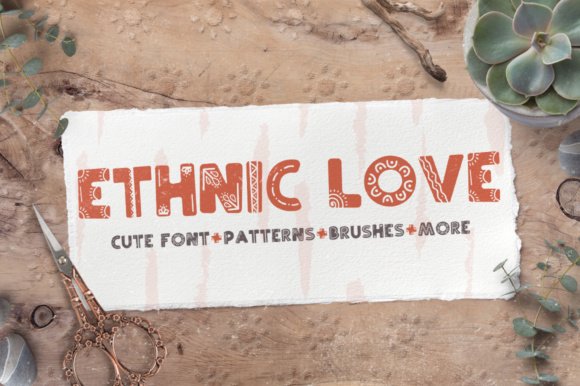
The Birth of a New Love Story: Introducing the Ethnic Love Font
Have you ever been lost in a sea of blank pages, searching for the perfect font to bring your creative vision to life? It’s a feeling many designers know all too well. But what if I told you that there’s a font that can transport you to a world of vibrant patterns, eclectic charm, and timeless beauty? Welcome to the world of the Ethnic Love Font, a game-changing typography that’s about to become your new best friend.
The Ethnic Love Font is more than just a font – it’s an experience. With its stunning patterns, illustrator brushes, and unique decorative circles, this font is designed to add a touch of personality to any design project. Whether you’re a seasoned pro or a creative newbie, the Ethnic Love Font is the perfect tool to help you express yourself and bring your unique voice to the world.
- Font Family: Ethnic Love Font is a unique, hand-drawn font family designed to convey love and affection in various cultures.
- Font Size: Available in multiple font sizes, including Regular (400), Bold (700), and Extra Bold (900), to suit various design needs.
- Unique Characteristics: Features intricate, hand-drawn designs and ornaments, adding a touch of cultural authenticity and love to any design.
Designer Review: Ethnic Love Font
I recently had the chance to work with the Ethnic Love Font, and I must say it’s an interesting combination of traditional and modern elements. ✨ One of the things that stands out about this font is its unique character set, which includes a range of ethnic-inspired symbols and glyphs. This can be a great asset for designers looking to add a touch of cultural flair to their projects.
Another strength of the Ethnic Love Font is its versatility. ✨ It’s available in a range of weights and styles, making it easy to use in a variety of contexts, from body text to headings. The font also includes a number of ligatures and swashes, which can add an extra level of sophistication to your designs.
- ⚠️ The font’s overall aesthetic may be polarizing, with some designers finding it too kitschy or over-the-top. This could be a drawback for projects where a more subtle approach is needed.
- ⚠️ The font’s character set is limited, with some languages and scripts not well-represented. This could be a problem for designers working on projects that require support for a wide range of languages.
Overall, I think the Ethnic Love Font is a solid choice for designers looking to add some personality to their projects. While it may not be the best fit for every project, it’s definitely worth considering for those that require a unique and eye-catching font.
The Ethnic Love Font is ideal for:
- Personalized gifts and decorations
- Cultural and ethnic-themed designs